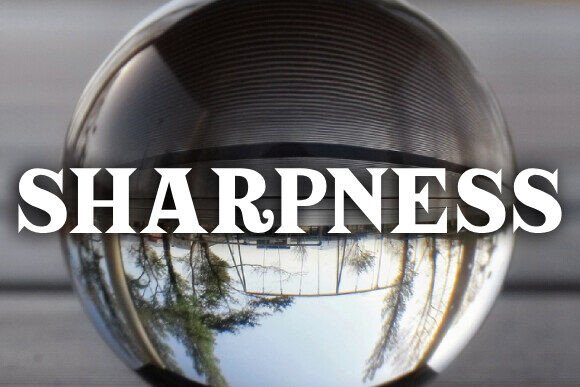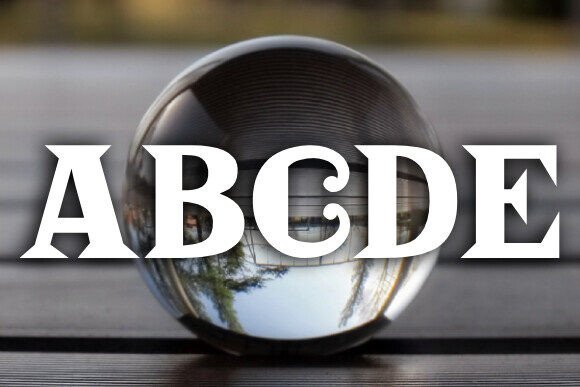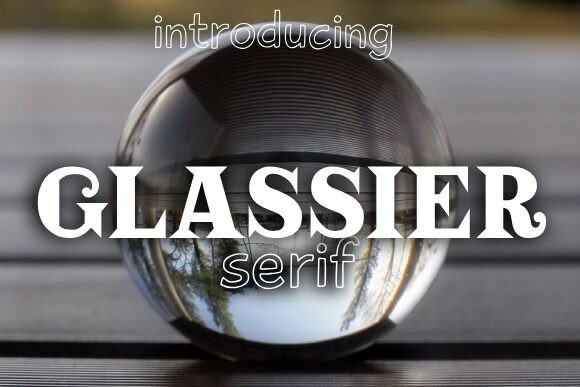
Discover the Elegance of Glassier Font: Elevate Your Designs with this Awesome Serif Font
Are you a designer or crafter looking for the perfect font to add a touch of sophistication to your projects? Look no further than Glassier Font, an awesome serif font that is sure to fit seamlessly into any design. Whether you’re working on posters, flyers, or any other visual material, Glassier Font is an excellent choice that will elevate your work to the next level.
What Makes Glassier Font Stand Out?
Glassier Font is a beautifully crafted serif font that boasts a unique blend of classic elegance and modern flair. Its distinctive features include:
• Classic Serif Design: Glassier Font features traditional serif elements that evoke a sense of timelessness and sophistication.
• Clean and Crisp Lines: The font’s lines are clean and crisp, making it perfect for use in a variety of design applications.
• Highly Legible: Glassier Font is designed to be highly legible, even at small sizes, ensuring that your text is always easy to read.
• Versatile: This font is incredibly versatile, making it suitable for use in a wide range of design projects, from posters and flyers to logos and branding materials.
Why Choose Glassier Font for Your Designs?
There are many reasons why Glassier Font is an excellent choice for designers and crafters. Here are just a few:
• Instant Professionalism: Glassier Font adds an instant touch of professionalism to any design, making it perfect for projects where you want to make a strong impression.
• Easy to Pair with Other Fonts: This font pairs beautifully with a wide range of other fonts, making it easy to create stunning font combinations.
• Supports Multiple Languages: Glassier Font supports multiple languages, making it a great choice for designers who work with international clients or create multilingual content.
• High-Quality Design: This font is designed to the highest standards, ensuring that it looks great in any design application.
How to Use Glassier Font in Your Designs
Using Glassier Font in your designs is easy. Here are a few tips to get you started:
• Pair it with a Sans-Serif Font: Pair Glassier Font with a sans-serif font for a classic and modern look.
• Use it for Headings and Titles: This font is perfect for use in headings and titles, where its elegant design can really shine.
• Experiment with Different Sizes: Don’t be afraid to experiment with different font sizes to create visual interest and hierarchy in your designs.
In conclusion, Glassier Font is an awesome serif font that is sure to elevate your designs to the next level. With its classic design, clean lines, and high legibility, this font is perfect for use in a wide range of design applications. Whether you’re a designer or crafter, Glassier Font is an excellent choice for anyone looking to add a touch of sophistication and elegance to their work. So why wait? Download Glassier Font today and start creating stunning designs that will leave a lasting impression.